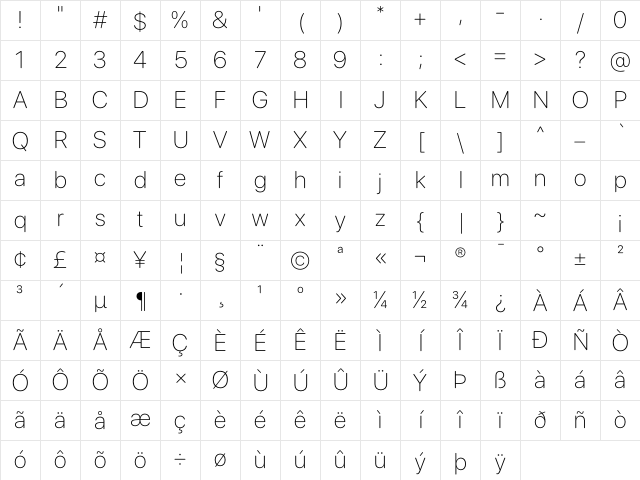
SF Pro Rounded Thin
Style: Thin
Foundry: Apple Inc.
Designer: Apple Inc.
Design Context for SF Pro Rounded
SF Pro Rounded softens its letterforms with rounded terminals, giving it an approachable, friendly quality that works well in consumer-facing and digital contexts. Its slender proportions lend an understated elegance to any composition.
Font Pairing: Pairs well with a rounded or humanist sans for body copy, maintaining the friendly tone without relying on SF Pro Rounded to carry extended reading.
Pro Tip: Use SF Pro Rounded for UI elements, app interfaces, and anywhere a friendly, approachable tone needs to be maintained without sacrificing clarity.